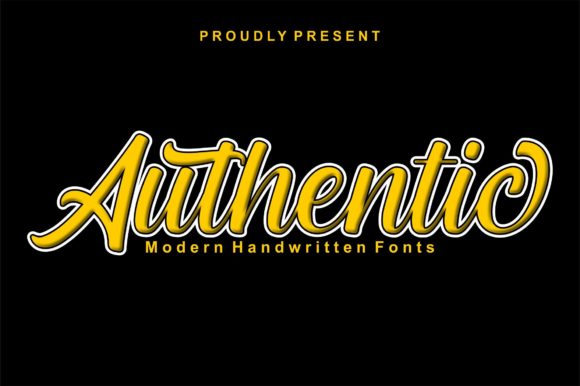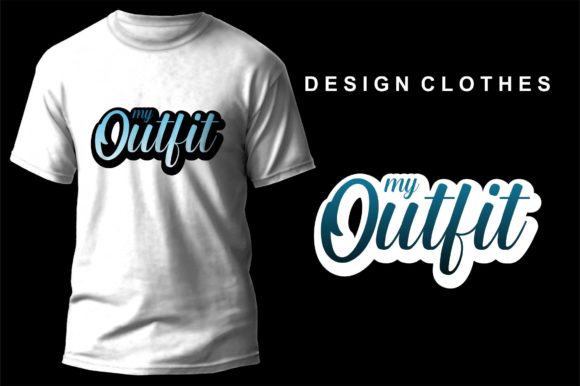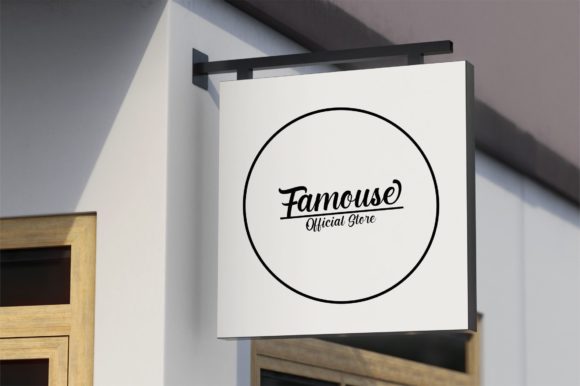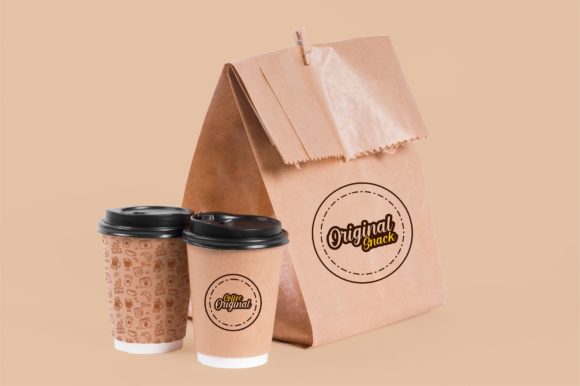
About Authentic Font
Authentic is a beautiful and timeless handwritten font. It is the best choice for creating attractive logos, branding, packaging products and quotes. This font is PUA encoded which means you can access all of the glyphs and swashes with ease!